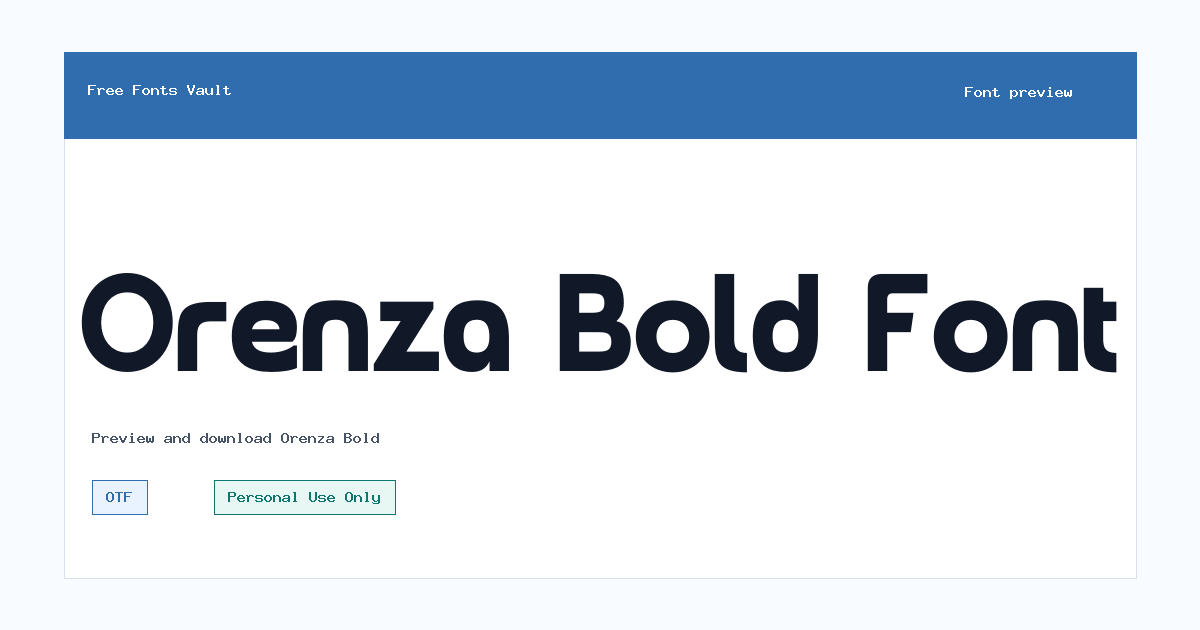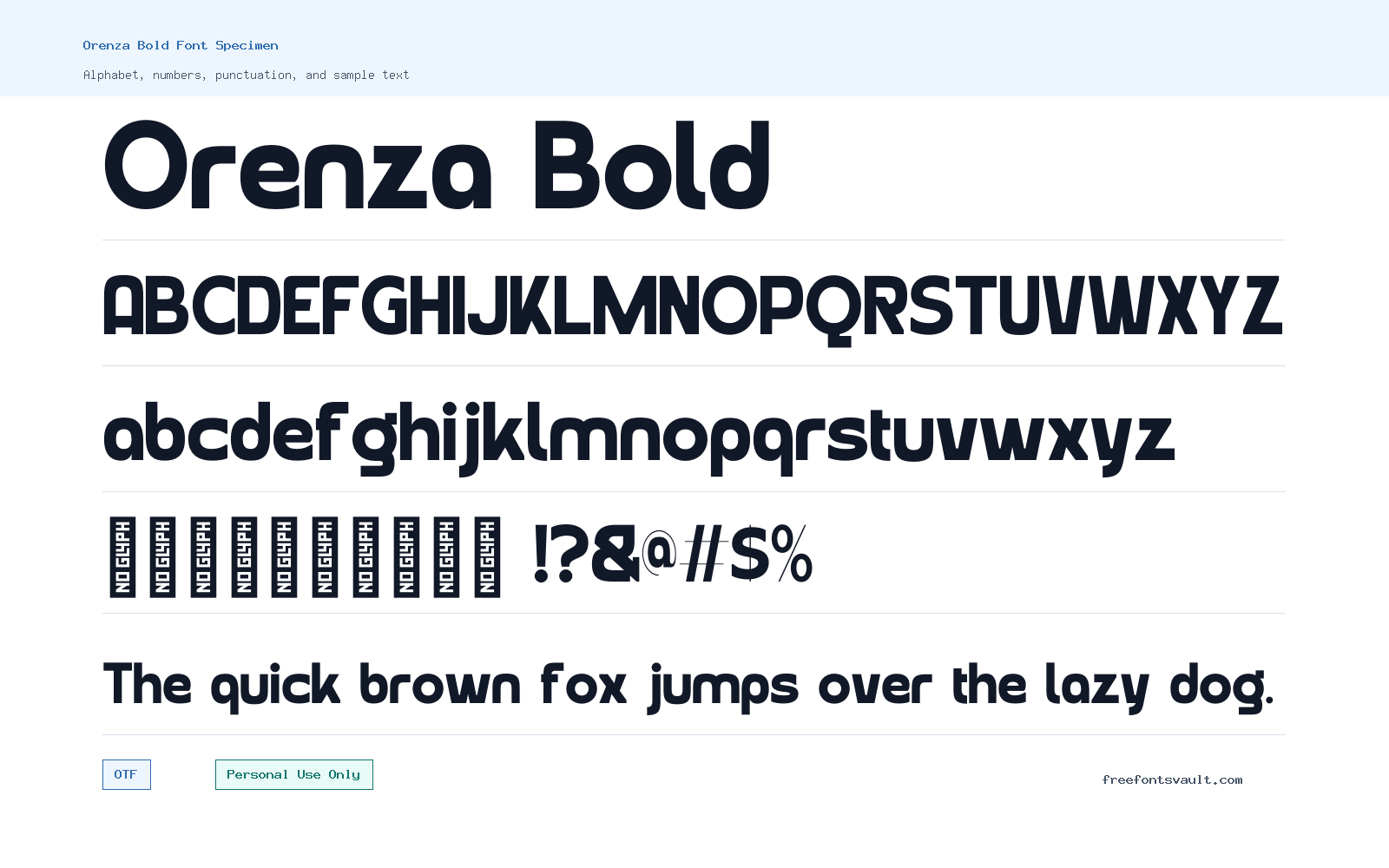
Orenza Bold
- Designer Sigit Dwipa Raharjo
- Foundry Nirmana Visual
Orenza Bold font.
Orenza Bold is a bold sans serif font by Sigit Dwipa Raharjo of Nirmana Visual. It is best treated as a display font for personal projects where clear, heavy lettering is more important than a quiet text style.
About Orenza Bold
Orenza Bold has the direct feel you expect from a bold sans serif: strong letterforms, a firm presence, and enough weight to hold attention in short settings. Because the listed font weight is 700, it is a better fit for titles, cover text, poster words, headers, labels, and other places where a few words need to stand out. It is not the kind of font you should choose for long reading passages without testing it carefully first. Heavy sans serif fonts can look clean at large sizes, but they may feel dense when used for body copy, small captions, or crowded mobile layouts.
- Bold sans serif style with a listed 700 font weight
- Best used for short, high-impact text rather than long paragraphs
- Single listed variant: regular style with bold weight
- Personal poster titles and social graphics
- Large website headings in mockups or non-commercial projects
- Labels, cover art drafts, banners, and display typography experiments
What kind of font is Orenza Bold?
Orenza Bold is listed as a bold sans serif font. Its 700 weight makes it more suitable for headings and display text than long body copy.
How should I pair Orenza Bold?
Pair it with a simpler regular-weight font for body text. Let Orenza Bold handle the headline or main word, and keep supporting text lighter for balance.